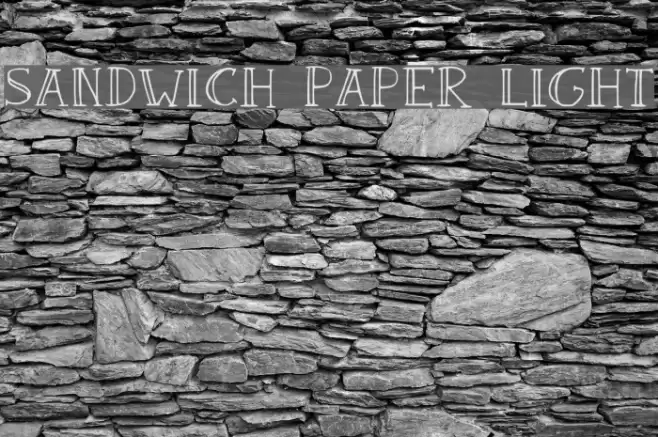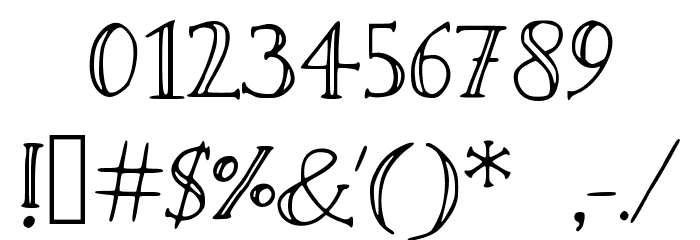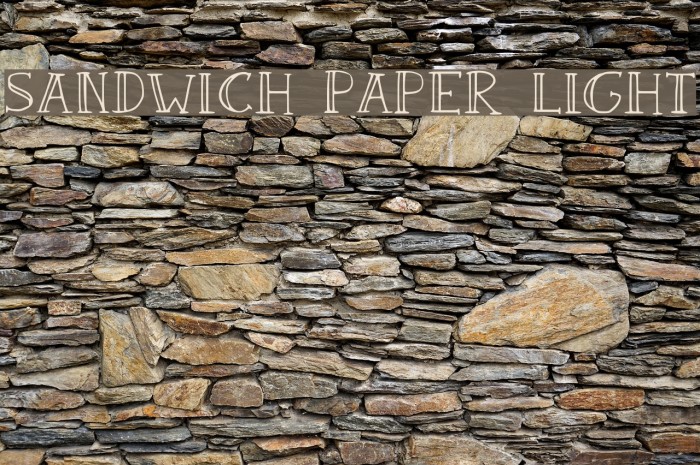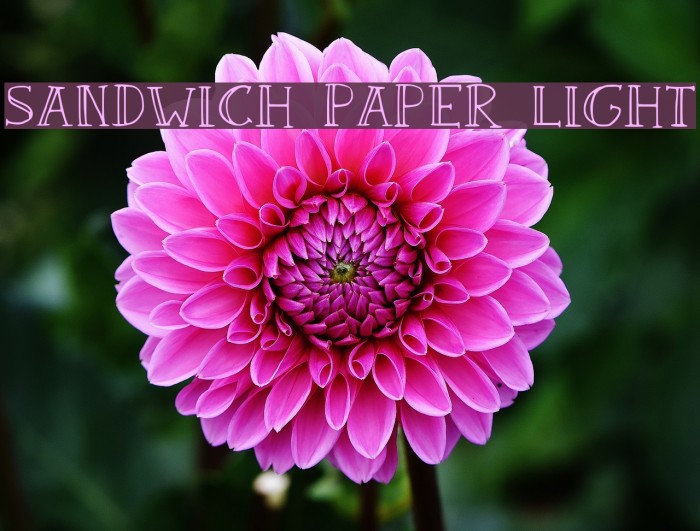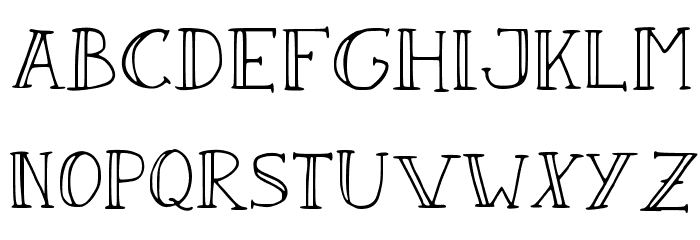
Sandwich Paper Light Font
Sandwich Paper Light Description
This font features a unique blend of classic and modern elements, characterized by its thin, elegant strokes and slight serifs that give it a sophisticated appearance. The uppercase letters are distinct with a slight flair, while the lowercase letters maintain a consistent style that complements the overall design. The numerals are clear and easy to read, with a touch of artistic flair that matches the alphabetic characters. Special characters are designed with a similar aesthetic, ensuring a cohesive look across all glyphs. This font's light weight and refined details make it suitable for projects that require a touch of elegance and readability.
A sophisticated serif font with elegant, thin strokes and slight serifs from Uncategorized fonts.
- Proposed Projects: Ideal for wedding invitations, luxury branding, editorial design, and elegant packaging.
- Overall Style: Classic
- Use Case: Headlines, Logos, Invitations